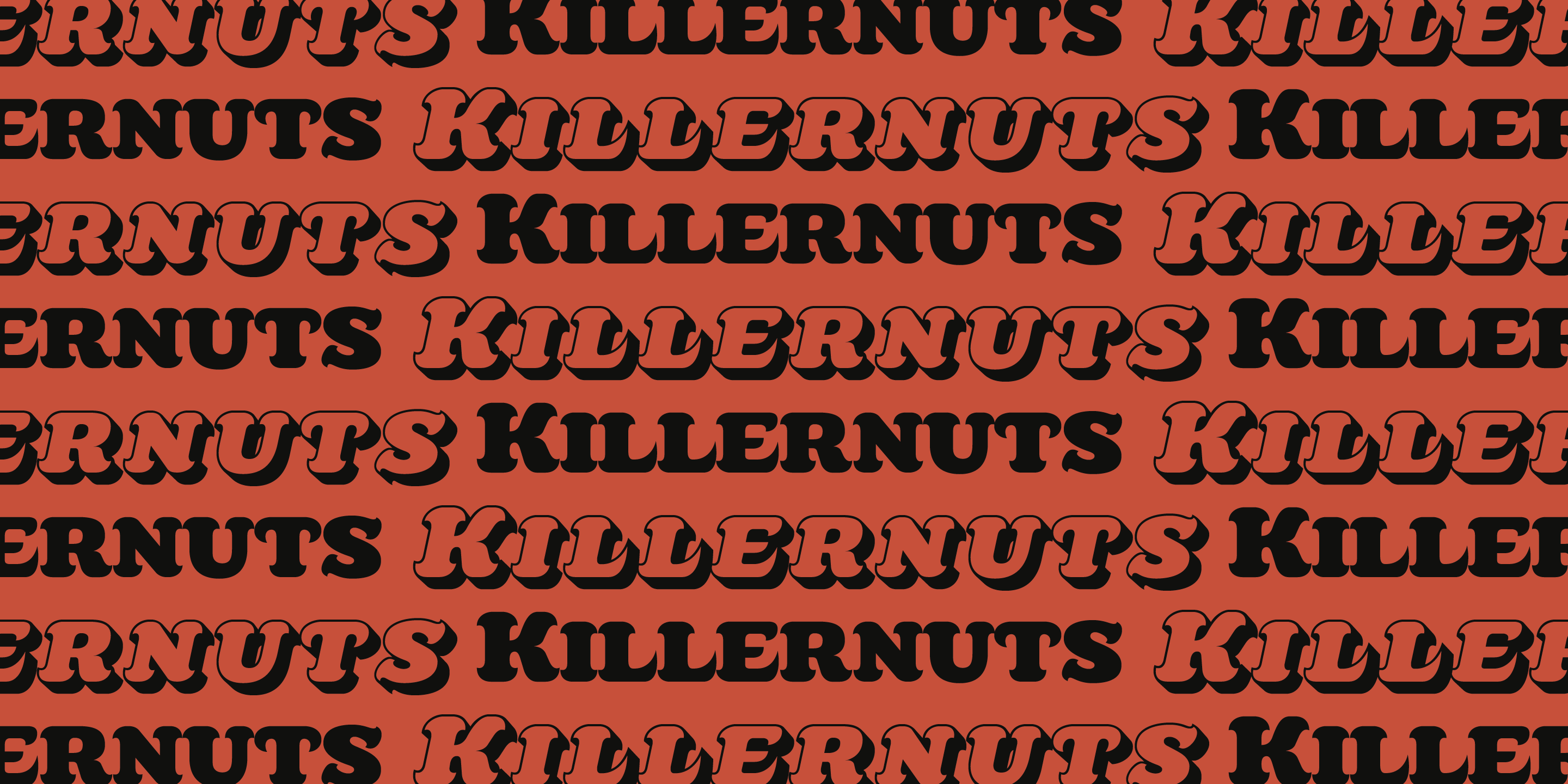
Killernuts Font Free Download is a bold, playful, and edgy display typeface that grabs attention instantly. Perfect for posters, branding, packaging, and creative projects seeking a fun yet rebellious vibe, Killernuts delivers personality and impact in every letter.
With its chunky, irregular shapes and energetic style, this font brings a dynamic and lively feel to headlines, logos, and promotional materials. Whether you want to stand out on social media or make a bold statement in print, Killernuts Font Free Download is your go-to typeface.